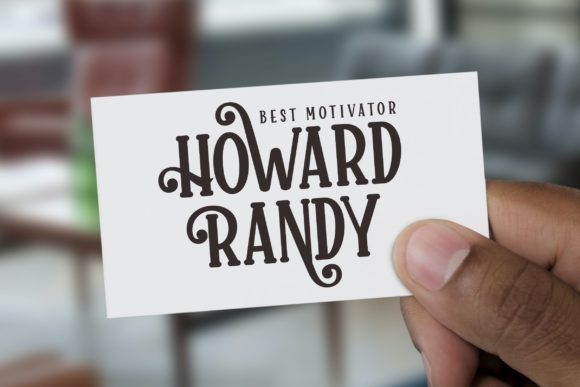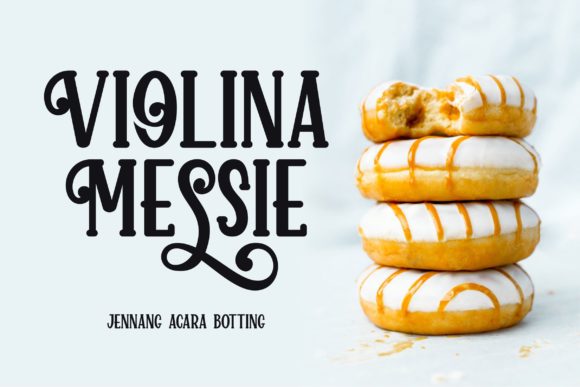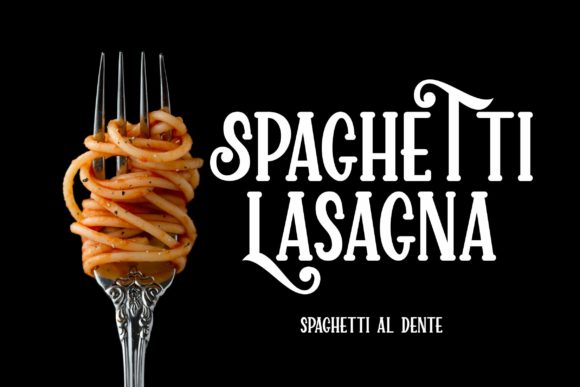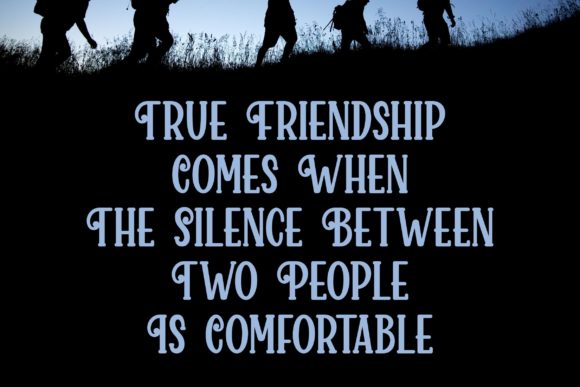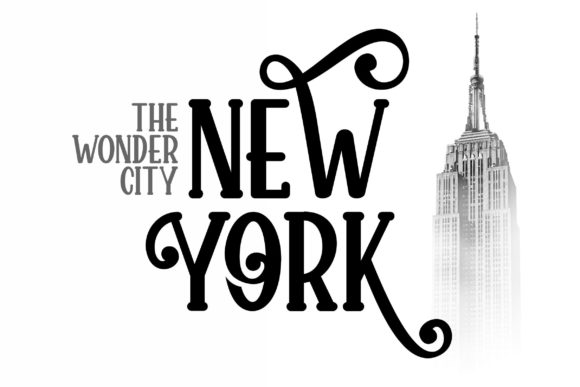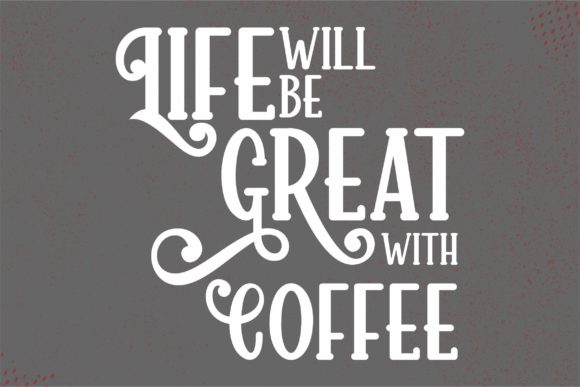
Discover the Perfect Font for Your Culinary Creations
Enter the Barongko Pastry Font, a stunning serif font that’s sure to tantalize your taste buds and delight your design senses. This versatile font is perfect for food menus, poster flyers, and prints, adding a touch of elegance and sophistication to any culinary creation. With its unique style and endless possibilities, the Barongko Pastry Font is a valuable asset for designers looking to take their work to the next level.
Barongko Pastry Font Key Features
- Font Family: A unique, hand-drawn font designed to resemble traditional pastry fonts, ideal for bakery and food-related businesses.
- Character Set: Includes a wide range of characters, including uppercase and lowercase letters, numbers, and special characters.
- Unique Characteristics: Features a distressed, vintage aesthetic with subtle imperfections, adding a touch of authenticity to designs.
Review of Barongko Pastry Font
Overall, I think the Barongko Pastry Font is a cute and playful addition to any design project. Here are some things that stand out:
- ✨ It’s perfect for food-related designs, especially pastry shops or bakeries, as it evokes a sense of warmth and comfort.
- ✨ The font is highly customizable, with a wide range of sizes and styles to choose from.
- ✨ The font is relatively easy to read, even at smaller sizes.
- ⚠️ The font may not be suitable for formal or professional designs, as it has a more casual and whimsical feel.
- ⚠️ Some users may find the font’s irregularities and imperfections to be distracting or unprofessional.
Overall, I think the Barongko Pastry Font is a great choice for designers who want to add a touch of personality and whimsy to their designs. While it may not be suitable for every project, it’s a fun and creative option that can help to stand out in a crowded design landscape.
Tips for Getting the Most Out of Barongko Pastry Font
To get the most out of Barongko Pastry Font, consider the following tips:
- Use Barongko Pastry Font for titles and headings to add a touch of elegance to your designs.